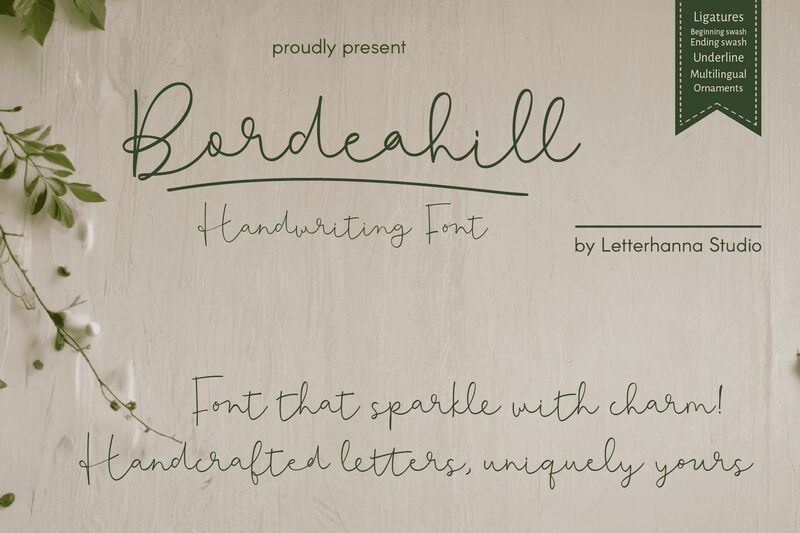
Bordeahill font by Letterhanna Type Foundry captures the charm of a handwritten style, embodying elegance and an organic flow. Its casual elegance offers a modern, personal touch while maintaining approachable, aesthetic simplicity. With versatile applications, this free font is perfect to create a personal connection between the reader and the text.
Bordeahill font can be used in a number of display or body text design applications. Brand packaging, slogans or mottos, landing pages, and social media posts can benefit from this font. Also, use it in magazines, apparel, blog themes, and even comics.